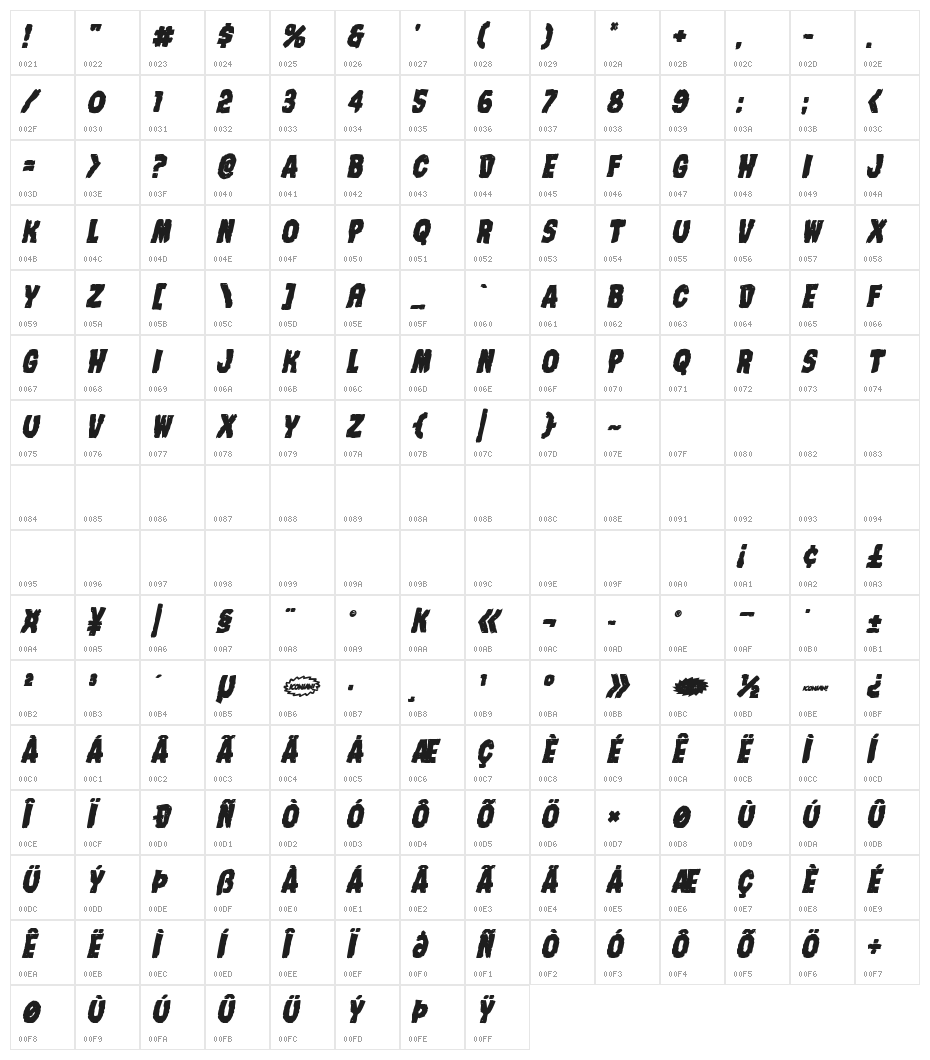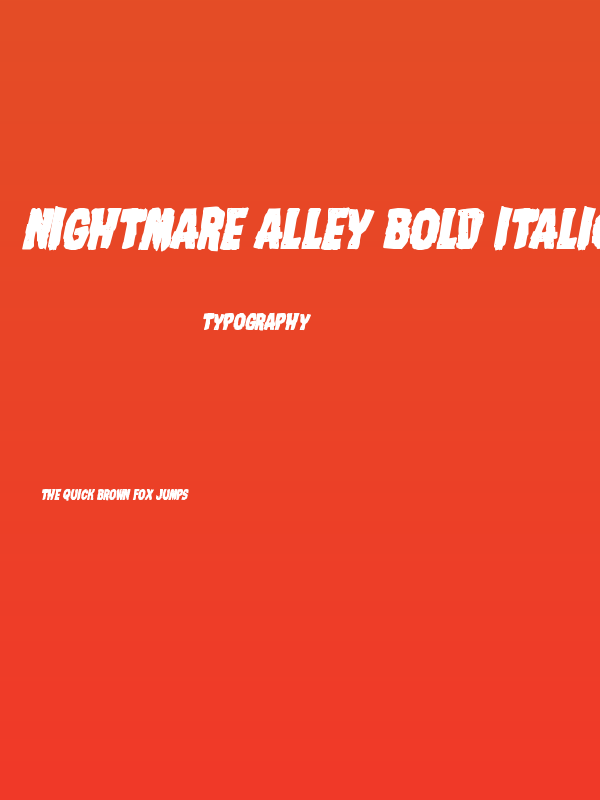
Nightmare Alley Bold Italic Font
Nightmare Alley Bold Italic Description
This font features a bold and italicized style with a distressed, grunge-like texture. The characters are thick and heavy, giving a strong visual impact. The edges are rough and uneven, adding a rugged and edgy feel. The italic slant adds a dynamic and energetic touch, making it suitable for attention-grabbing designs. The uppercase and lowercase letters maintain consistent styling, while the numbers and special characters follow the same bold and textured theme. This font is ideal for projects that require a dramatic and bold statement.
| Proposed Projects | Ideal for posters, album covers, horror-themed designs, and edgy branding. |